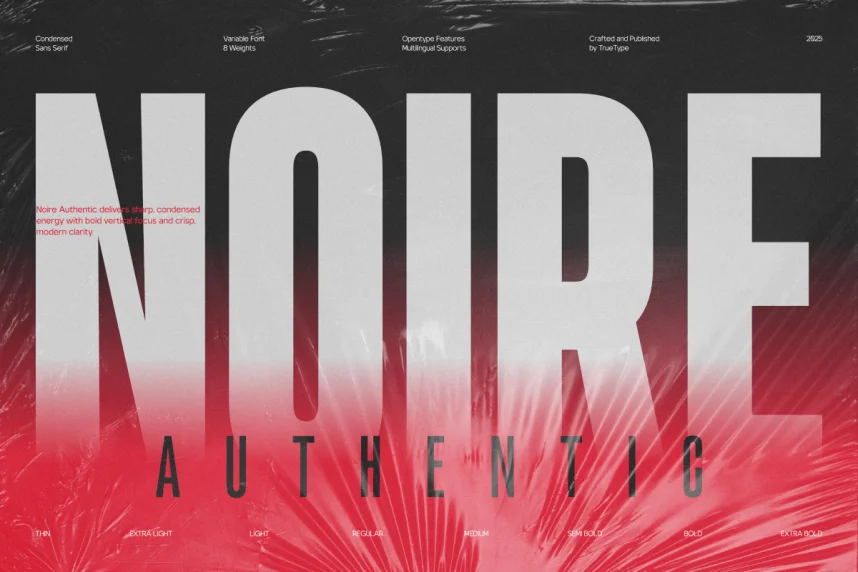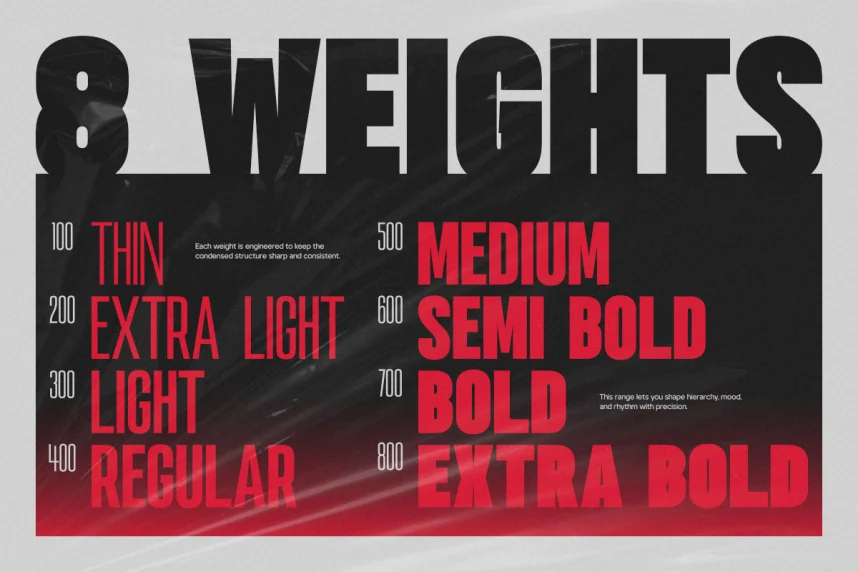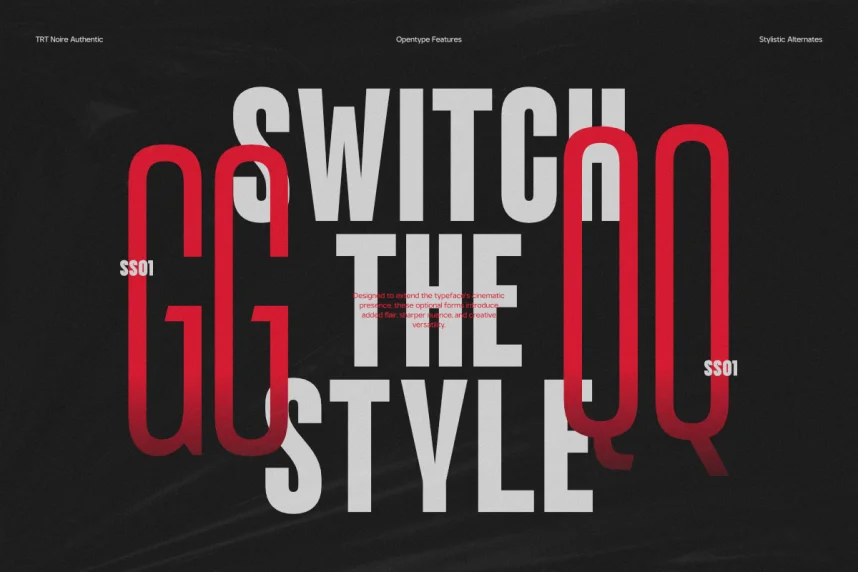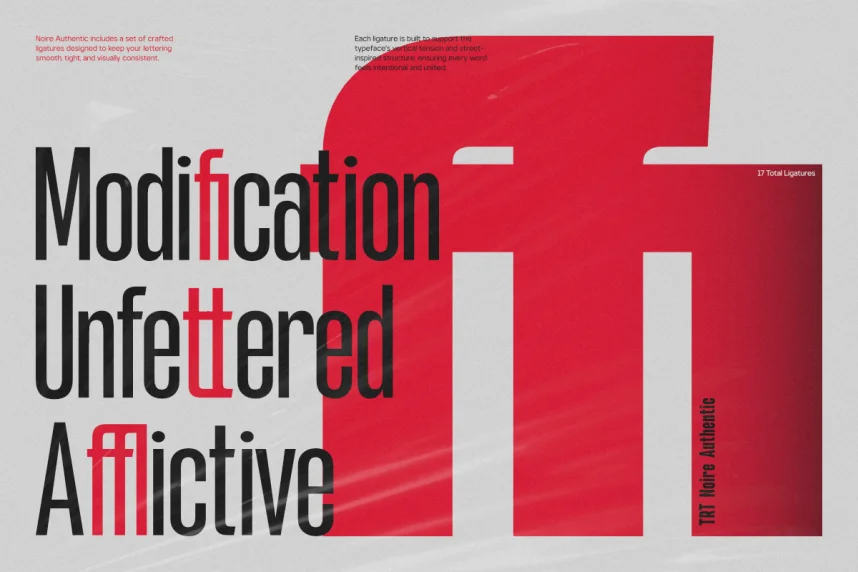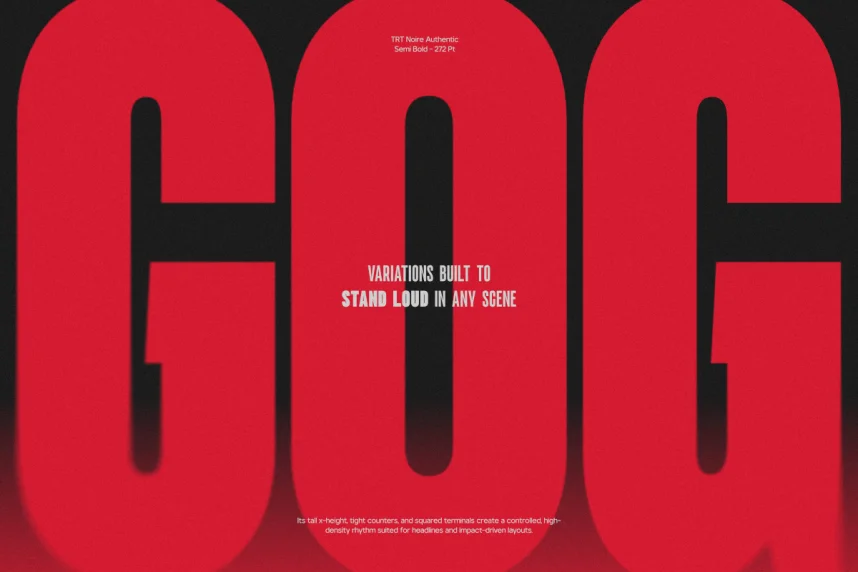
TRTNoire Authentic Font addresses the need for strong visual identity without sacrificing text clarity. Many bold fonts lack consistency across branding and print materials.
TRTNoire is an authentic display sans-serif font with solid strokes and compact letterforms. The font uses minimal contrast and tight spacing, making it effective for impactful headlines.